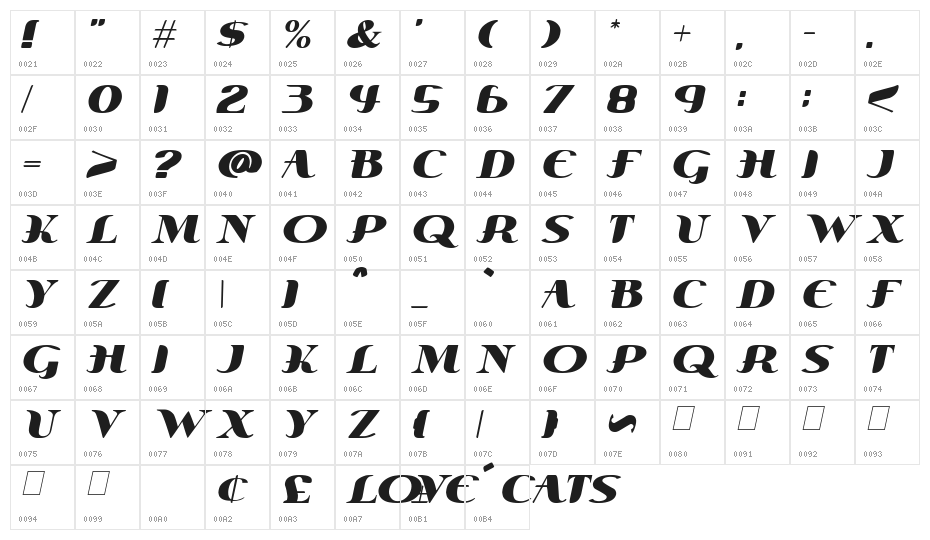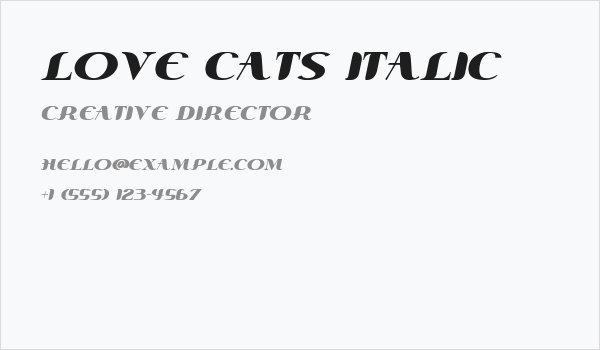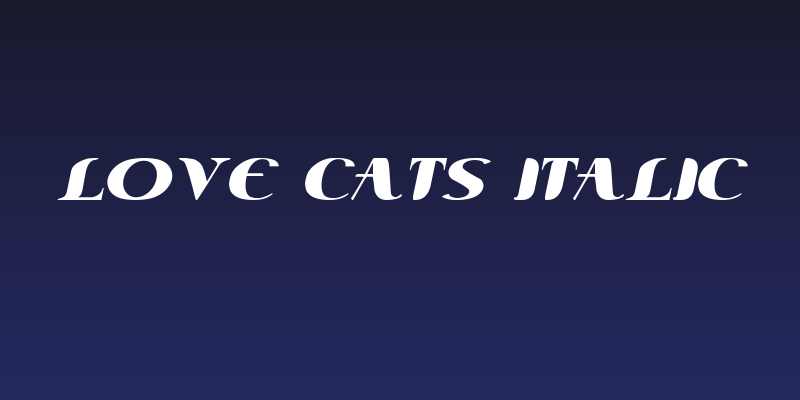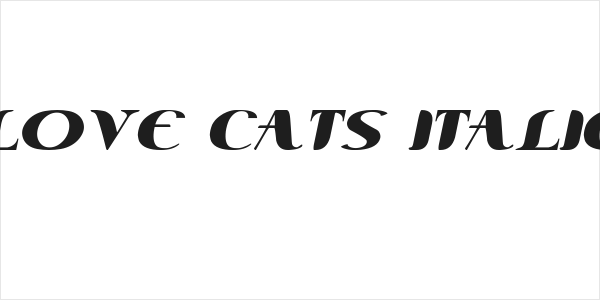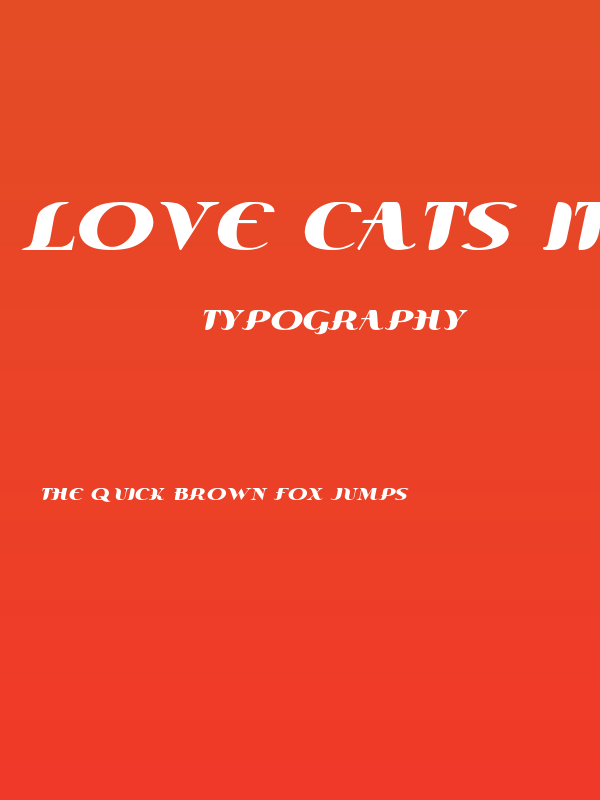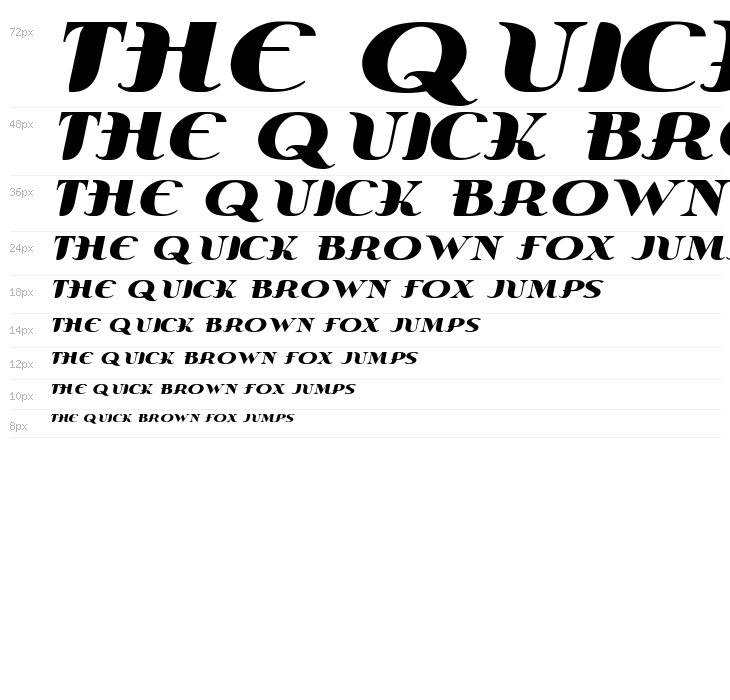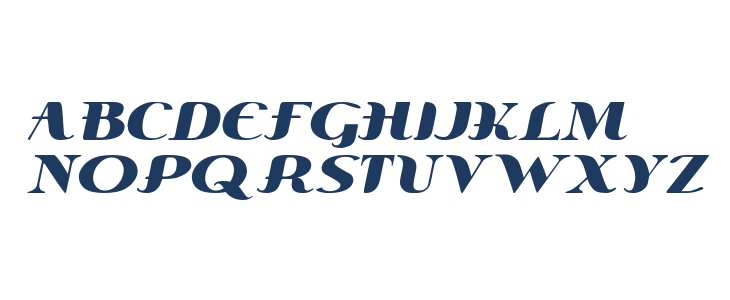
Love Cats Italic Font
Love Cats Italic Description
This font features a dynamic and elegant italic style with a strong emphasis on bold, sweeping curves and sharp edges. The uppercase letters are particularly striking, with a sense of movement and flair that suggests a modern take on classic calligraphy. The lowercase letters maintain this fluidity, offering a cohesive look across the alphabet. Numbers and special characters are designed with the same attention to detail, ensuring consistency throughout. The overall appearance is both sophisticated and playful, making it suitable for a variety of creative applications.
| Proposed Projects | Ideal for branding, logo design, fashion magazines, and creative advertising campaigns. |